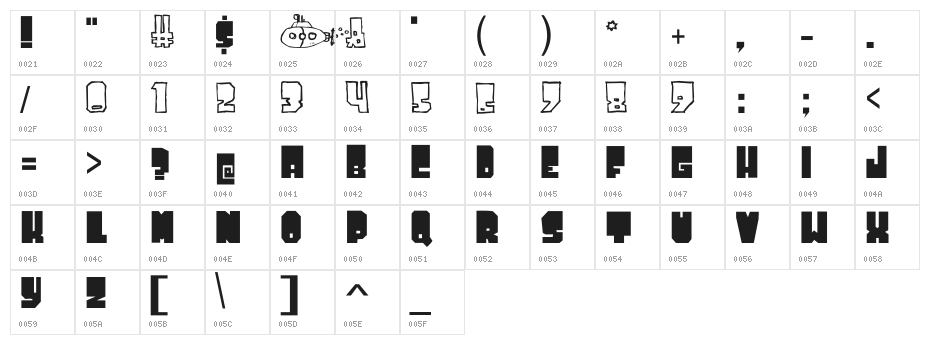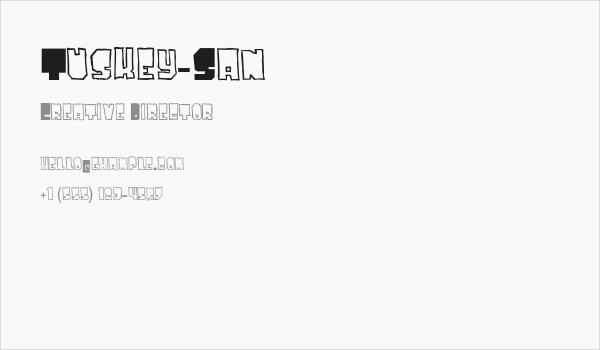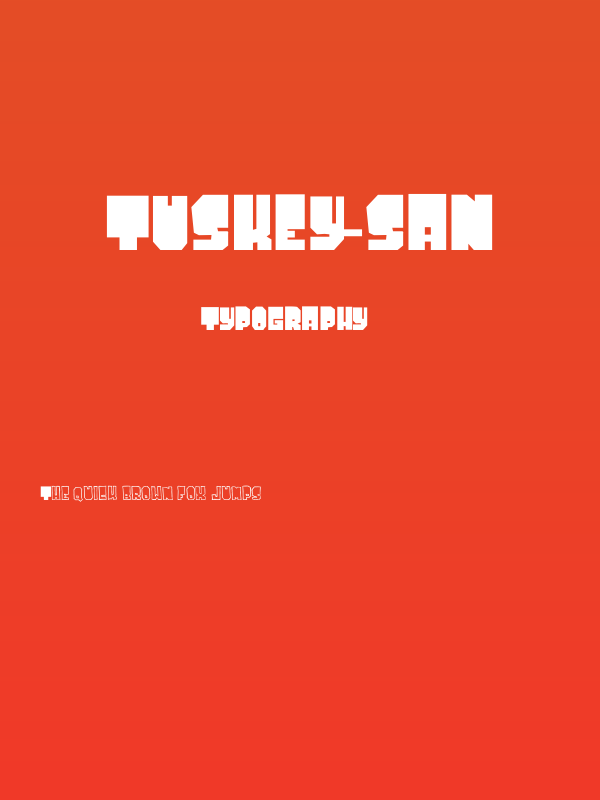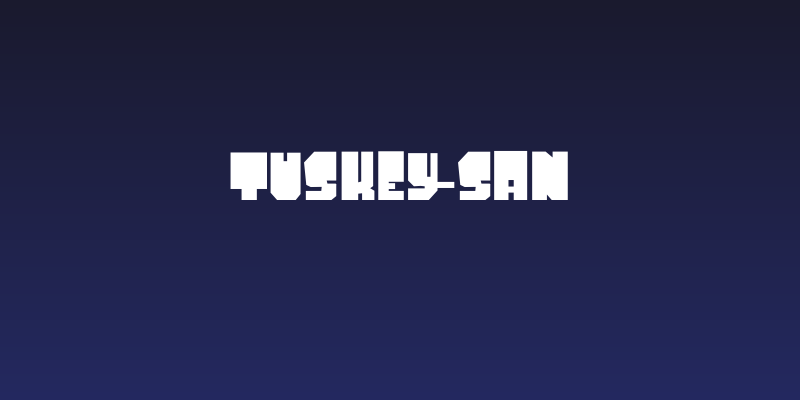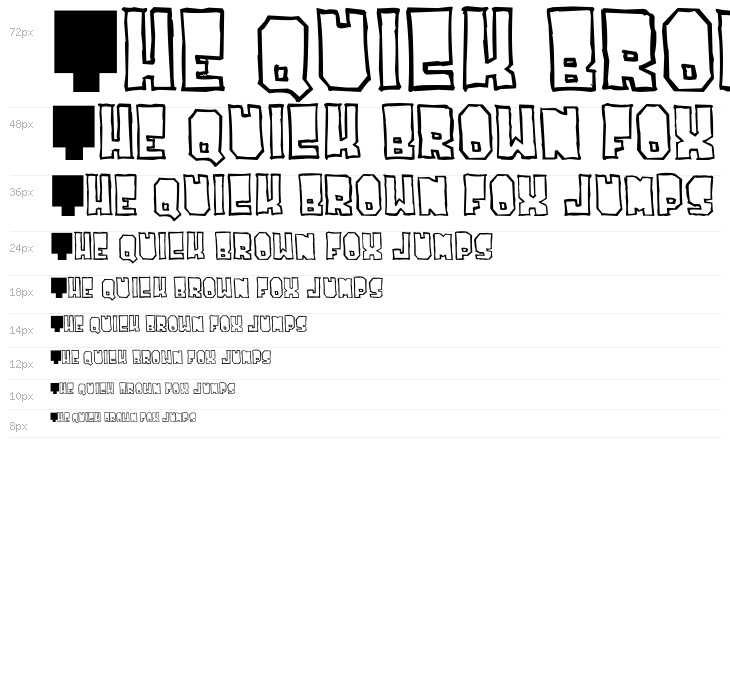
Tuskey-San Font
Tuskey-San Description
This font features a bold and playful style with a strong geometric influence. The uppercase letters are characterized by their thick, blocky forms, creating a sense of solidity and impact. The lowercase letters maintain a similar structure but with a slightly more relaxed and informal appearance. The numbers and special characters follow the same bold and quirky design, making them stand out. The font's unique style is further enhanced by its irregular outlines, giving it a hand-drawn, cartoonish feel. This combination of boldness and whimsy makes it ideal for projects that require a fun and eye-catching typeface.
Overall StylePlayful, Cartoonish
Proposed ProjectsIdeal for children's books, comic strips, playful branding, and eye-catching posters.